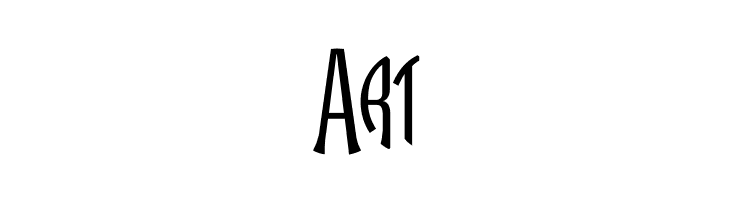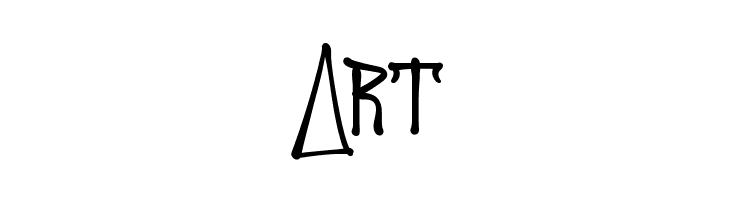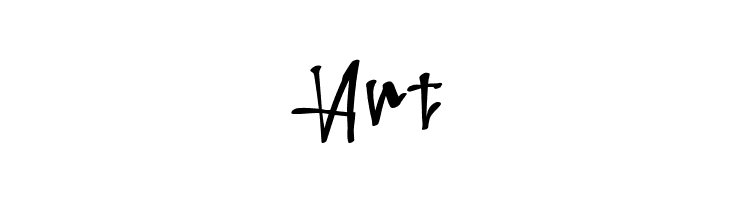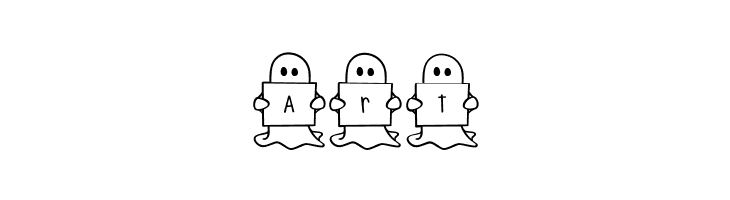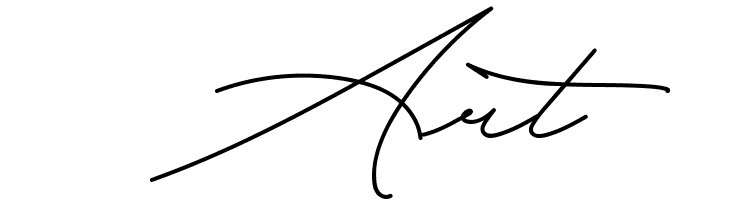
( Fonts by letterpunch )
A bold, geometric font with a modern yet vintage appeal, featuring tall, narrow characters.
( Fonts by letterpunch )
A bold, geometric font with elongated, narrow characters.
( Fonts by Calligraphy Fonts )
A modern, handwritten font with a playful and artistic style.
( Fonts by Reffan Suseno )
An artistic and edgy font with a blend of modern and traditional calligraphy elements.
( Fonts by Brittney Murphy Design )
A playful, ghost-themed decorative font perfect for Halloween designs.
( Fonts by Phytypo Design )
A bold, hand-drawn font with an expressive, graffiti-like style.
( Fonts by Calligraphy Fonts )
A playful and whimsical font with rounded, bold letterforms.
( Fonts by Type Graphy )
A delicate and elegant handwritten font with fluid, continuous strokes.
( Fonts by Calligraphy Fonts )
A graceful script font with flowing, connected strokes and elegant curves.
( Fonts by Calligraphy Fonts )
A cursive, handwritten font with elegant, flowing characters and bold lowercase letters.